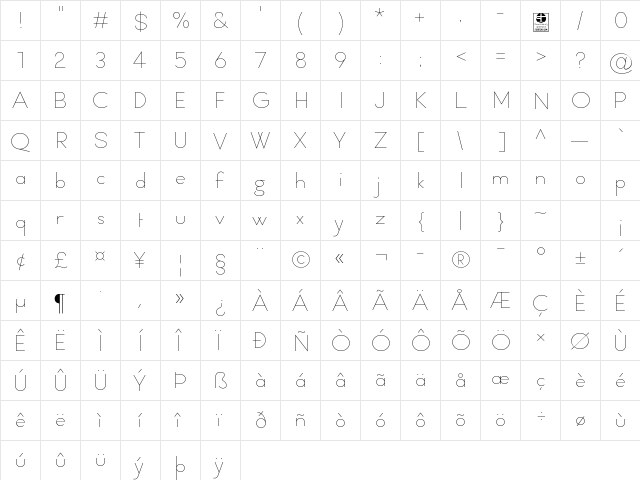
Typo Formal Light Demo Regular
| Foundry | StudioTypo |
| Designer | Mehmet Abac |
Design Context for Typo Formal Light Demo Typeface
Typo Formal Light Demo is a composed and adaptable typeface that performs quietly and consistently across a wide range of design contexts. The delicate stroke weight brings airiness and refinement to layouts.